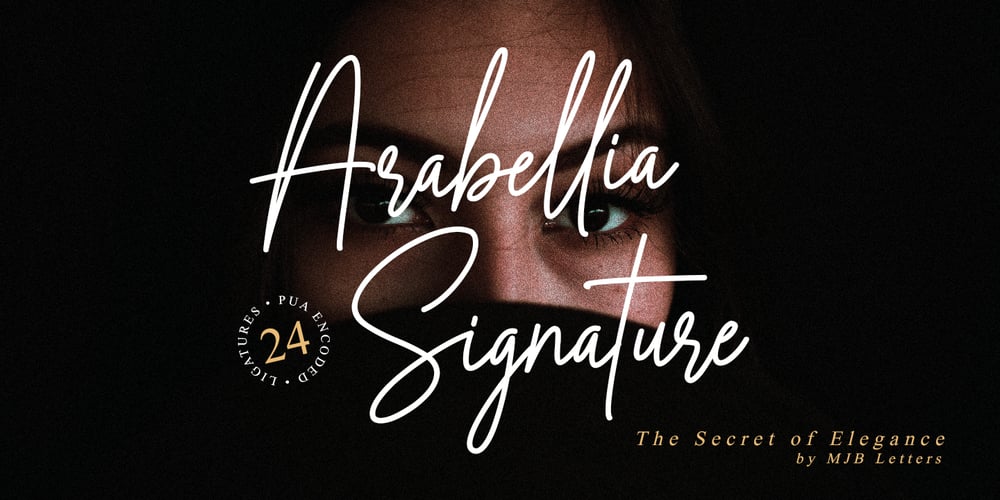
Arabellia Signature Font Family was designed by Muhammad Mujibulloh and published by MJB Letters. Arabellia Signature contains 1 styles and family package options. Arabellia Signature is a lovely and cursive handwritten font. It is the best choice for creating eye catching logos, branding and quotes. Every letter has a unique and beautiful touch, which will make your design come alive!